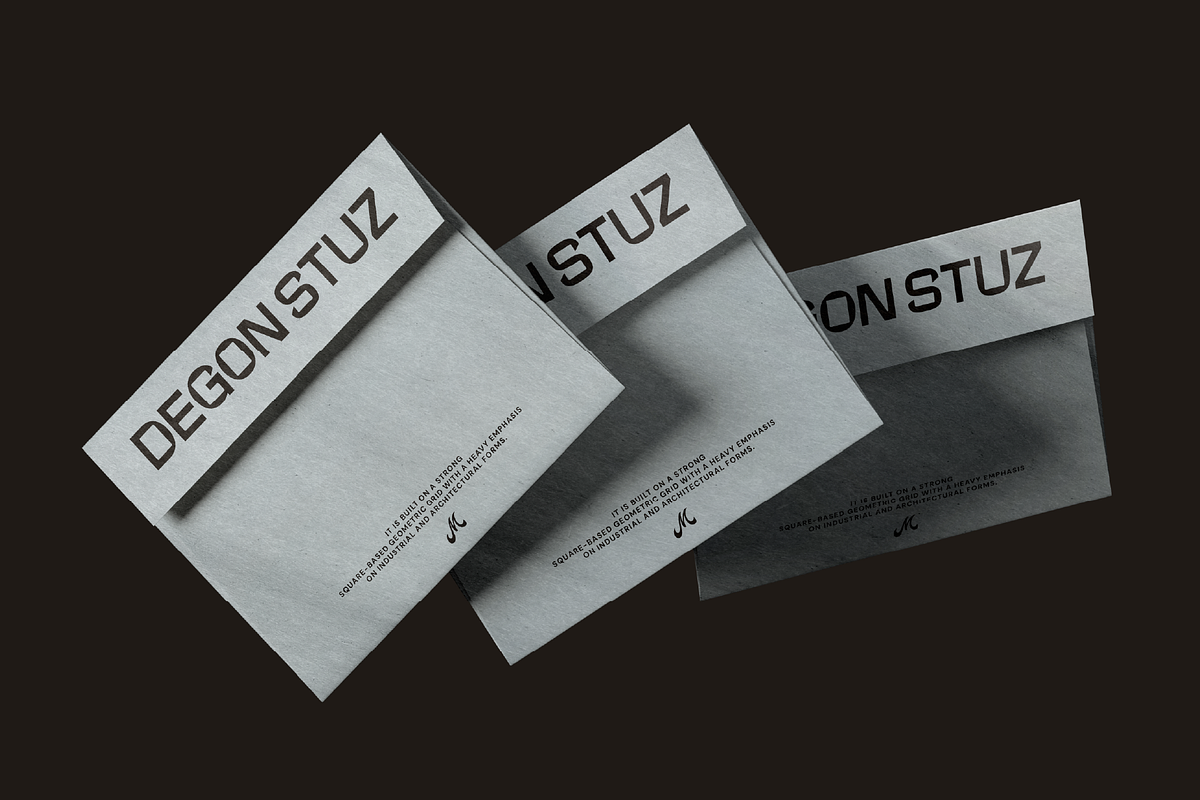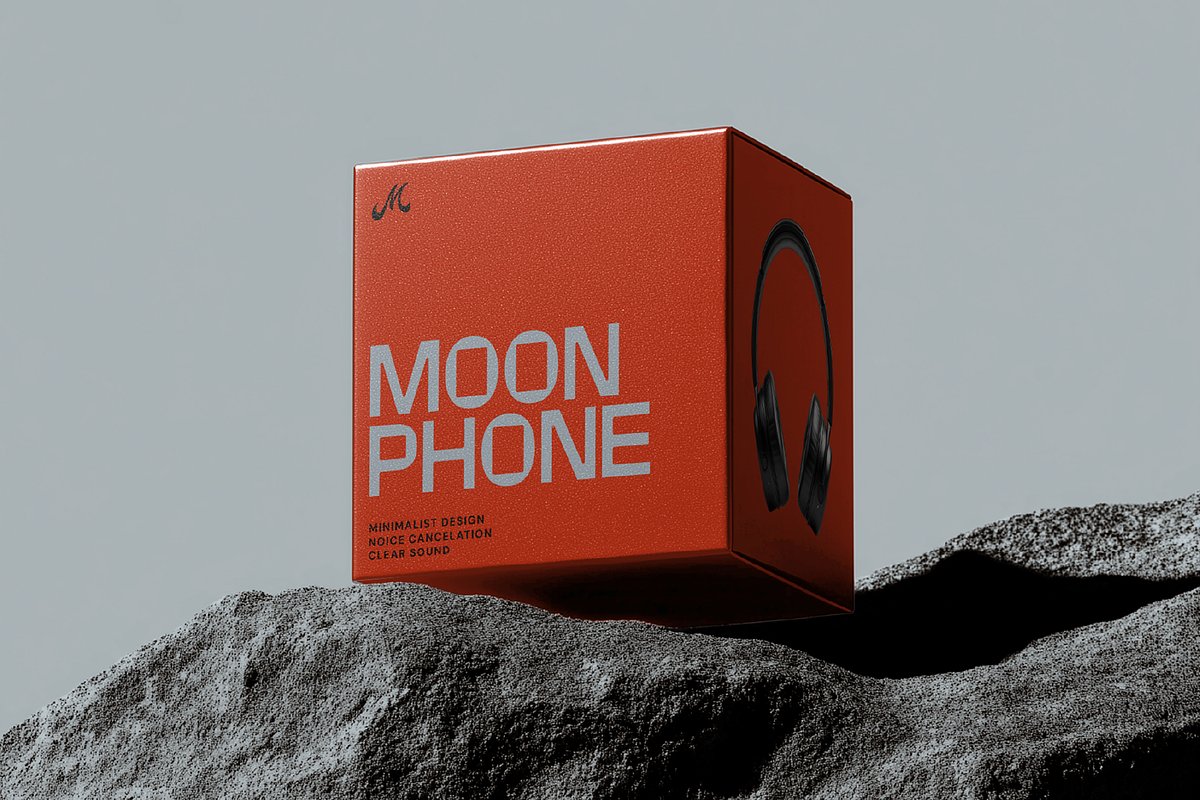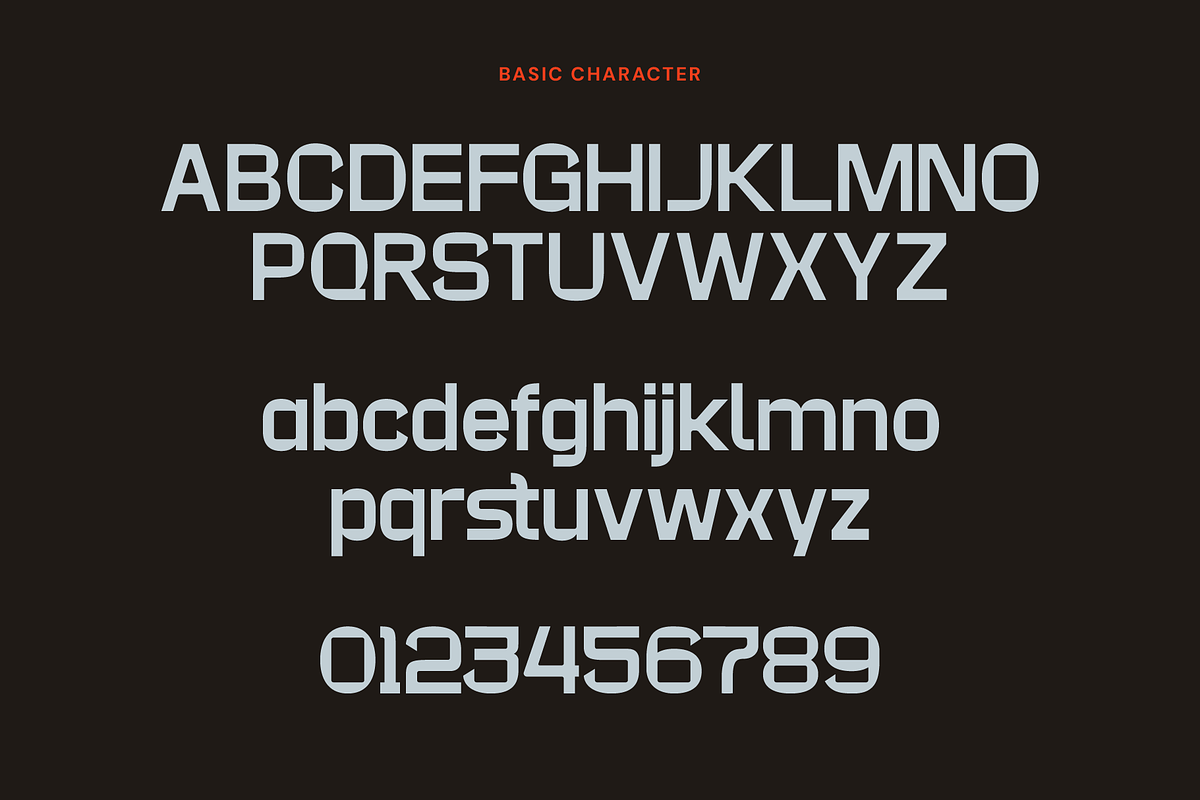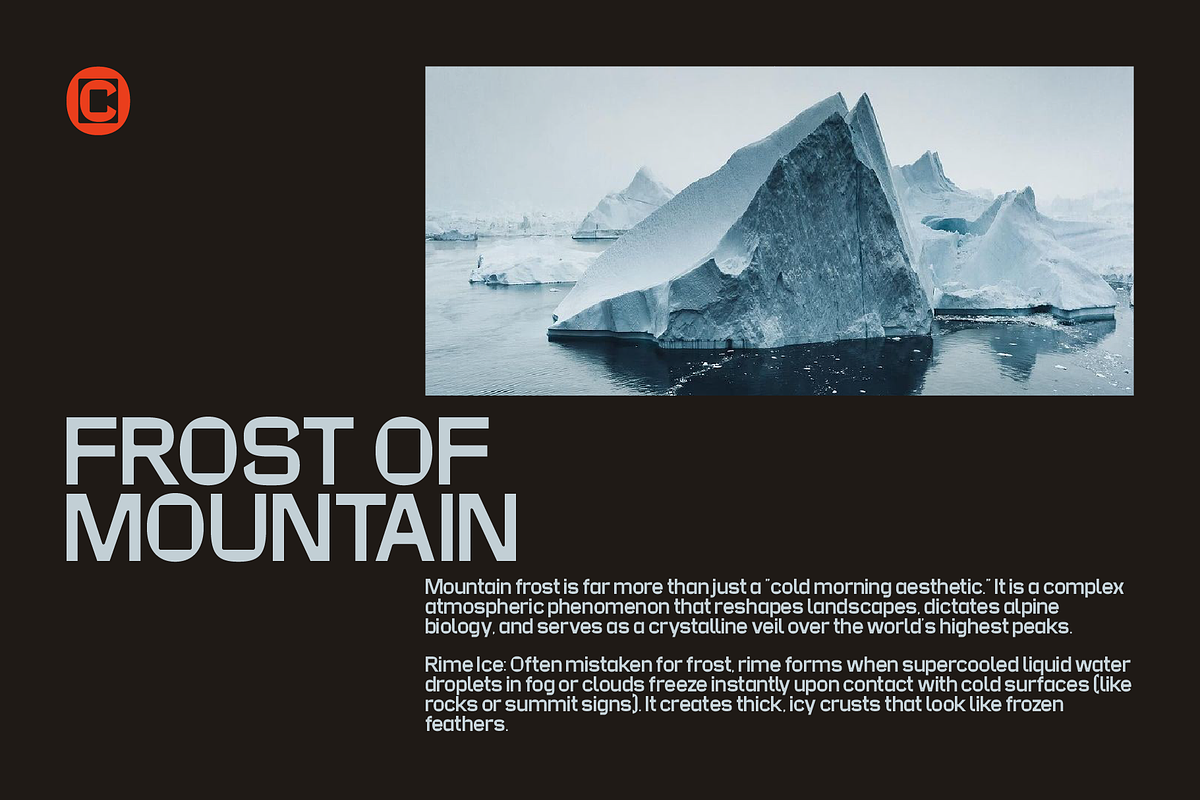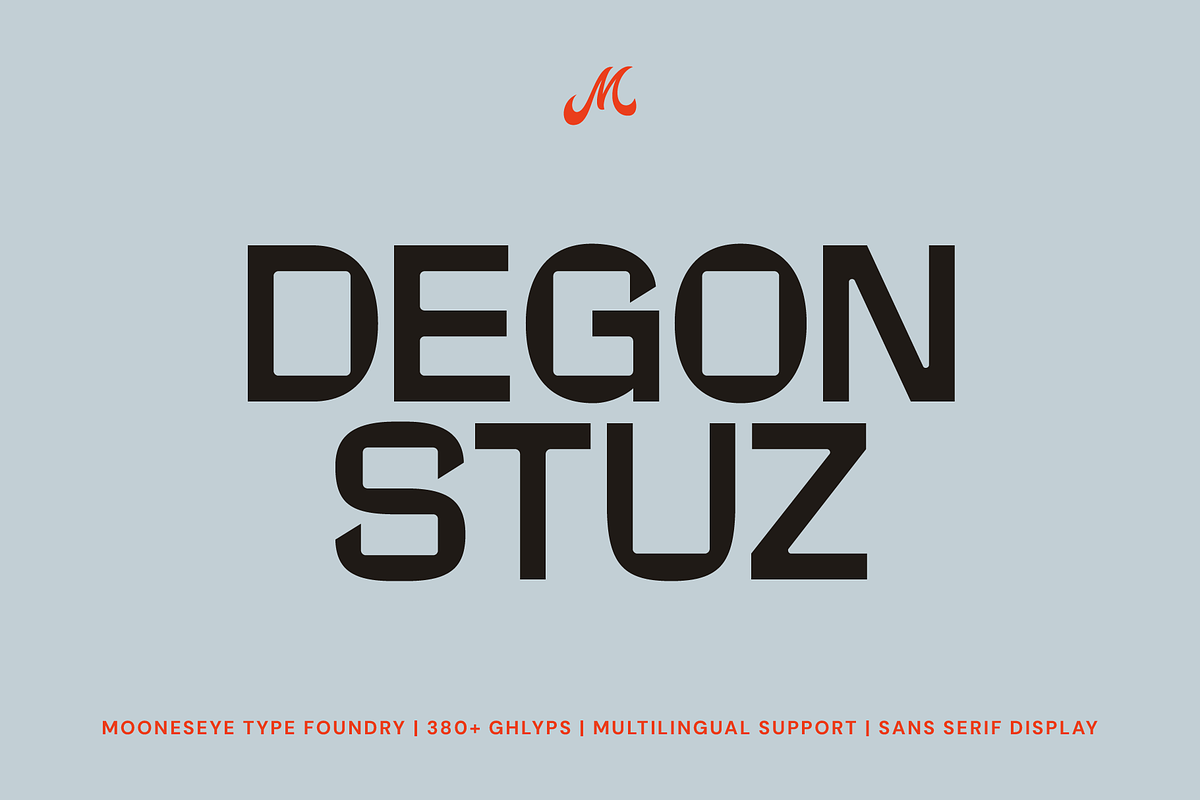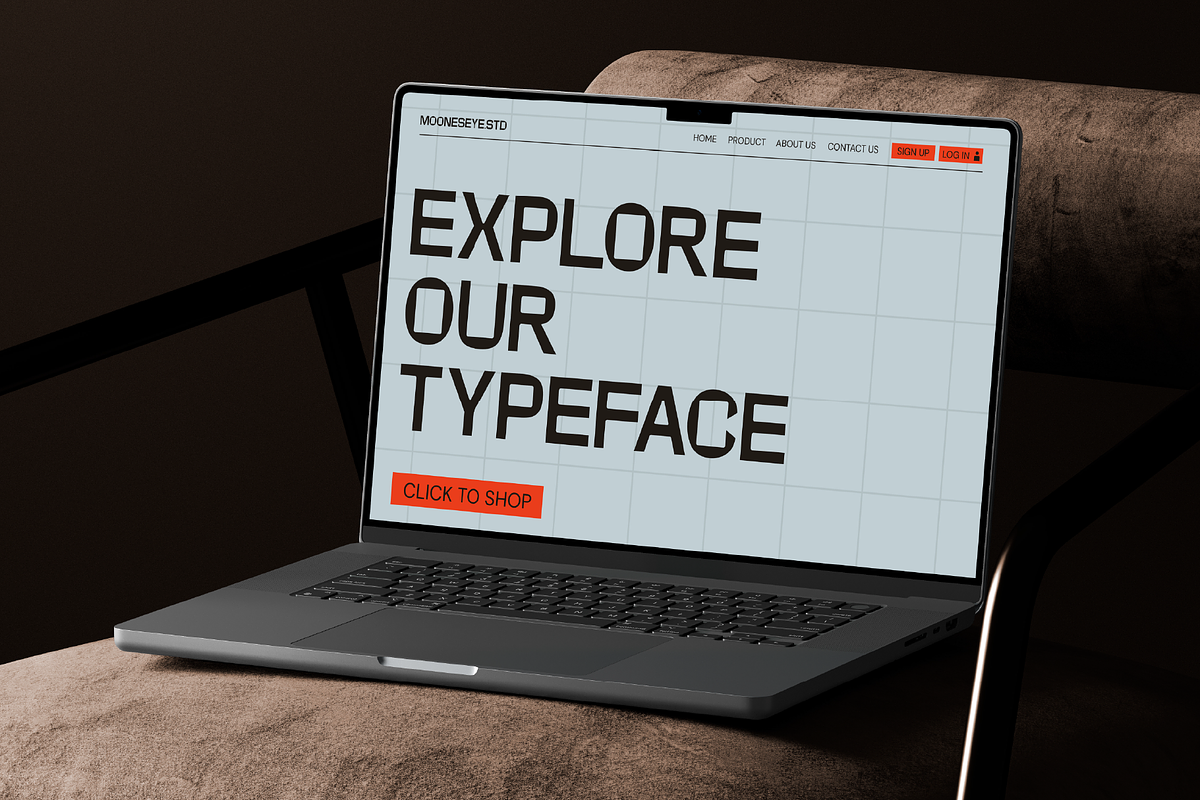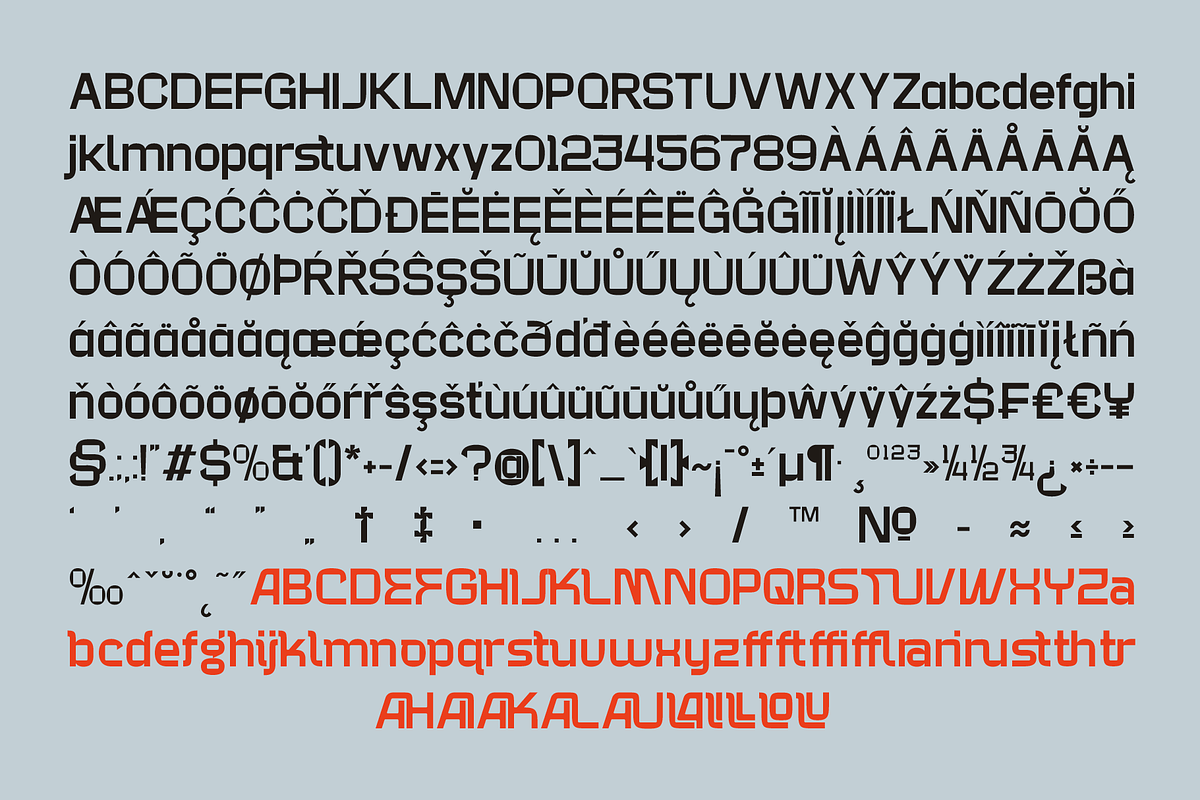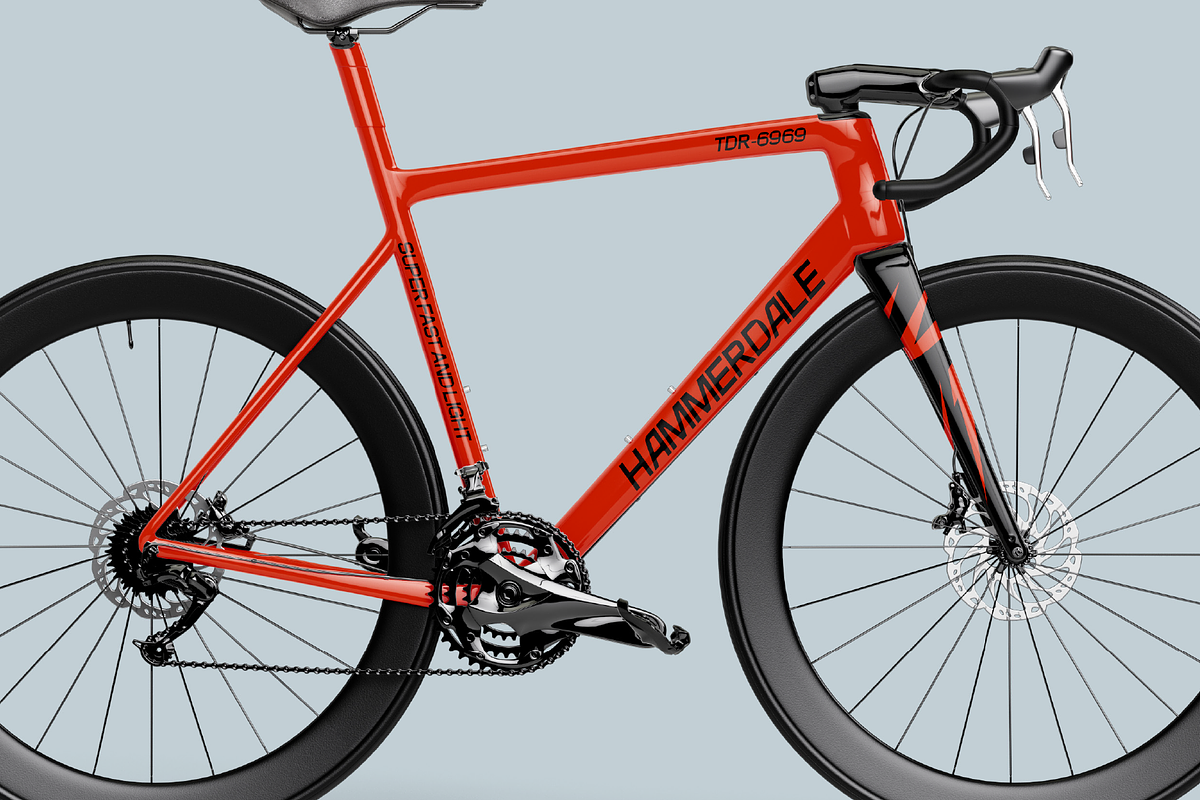
Degon Stuz - Sans Serif Display
Degon Stuz is a heavyweight geometric powerhouse built on an industrial grid. It moves away from traditional curves to embrace a bold, boxy, and architectural silhouette. This is the font you choose when your design needs to feel solid, masculine, and high-tech. Whether you are branding the next big AI startup or designing an Esports jersey, Degon Stuz commands immediate attention.
The true "soul" of this font lies in its ultra-modern ligatures. These unique connections allow you to transform simple typing into a custom, high-end logo with a single click. With its sharp angled cuts and high x-height, it creates a "wall of text" effect that is perfect for aggressive headlines and futuristic layouts.
Why Degon Stuz is a professional essential:
Industrial Geometric Grid: A solid, squarish construction for a tech-heavy look.
Futuristic OpenType Ligatures: Custom-look connections for instant logo creation.
High X-Height: Balanced for maximum impact in both headlines and tight layouts.
350+ Professional Glyphs: Includes alternates and ligatures.
Multilingual Support: Ready to power global brands and international tech projects.